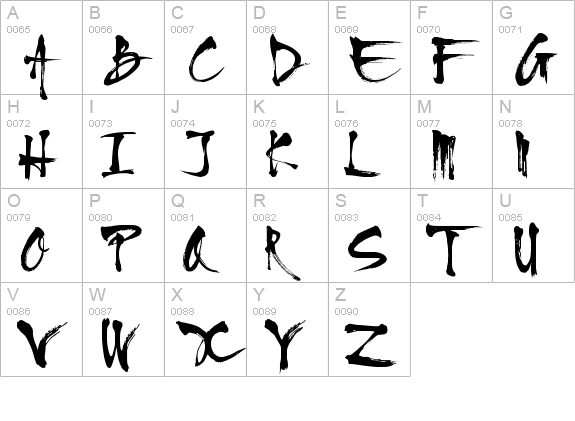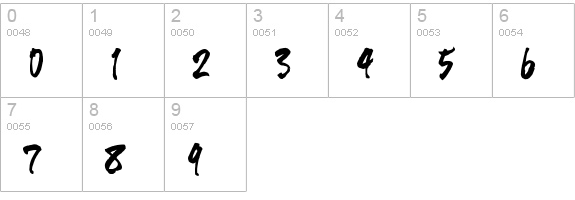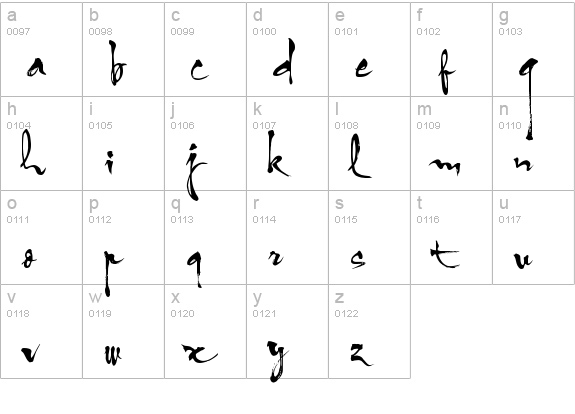
VNIHLThuphap Font Details
Introducing VNIHLThuphap, a stunning font that effortlessly combines elegance and modernity. This exquisite typeface is designed to captivate and inspire, making it the perfect choice for any creative project. With its sleek lines and unique letterforms, VNIHLThuphap stands out from the crowd, leaving a lasting impression on anyone who encounters it. But what truly sets VNIHLThuphap apart is its accessibility. This font is not only visually striking, but it is also completely free to use. Yes, you read that right - VNIHLThuphap is freely available to download at FontsMarket.com. This means that you can add a touch of sophistication to your designs without breaking the bank. Whether you're designing a logo, creating a poster, or crafting a website, VNIHLThuphap will elevate your work to new heights. Its versatility allows it to seamlessly blend into any design aesthetic, giving you the freedom to experiment and bring your creative vision to life. The attention to detail in VNIHLThuphap is truly remarkable. Each letter has been meticulously crafted, resulting in a font that is visually balanced and harmonious. From the delicate curves to the precise spacing, every aspect of this font exudes quality and craftsmanship. With VNIHLThuphap, you no longer have to compromise on style or affordability. Embrace the essence of elegance and sophistication with this free font, available for download at FontsMarket.com. It's time to unlock your creativity and make a statement with VNIHLThuphap.